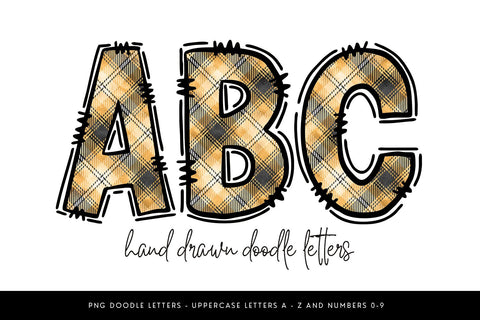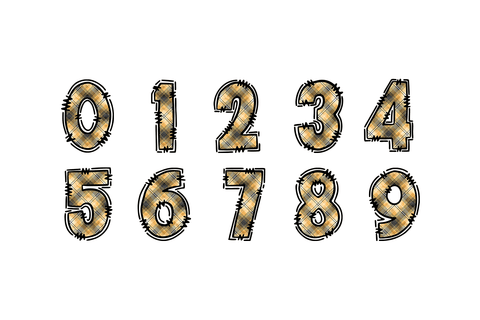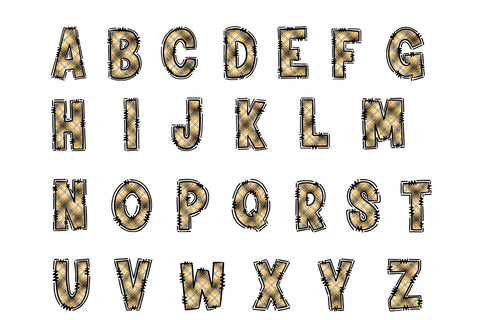
Mustard Yellow Plaid Alphabet PNG Letters
This mustard yellow plaid alphabet set includes doodle letters A–Z and numbers 0–9 in PNG format. Great for rustic fall crafts, farmhouse decor, buffalo check projects, sublimation tumblers, shirts, ornaments, and DIY holiday designs. A cozy plaid style perfect for autumn and year-round use.
✦ Uppercase letters A-Z
✦ Numbers 0 - 9